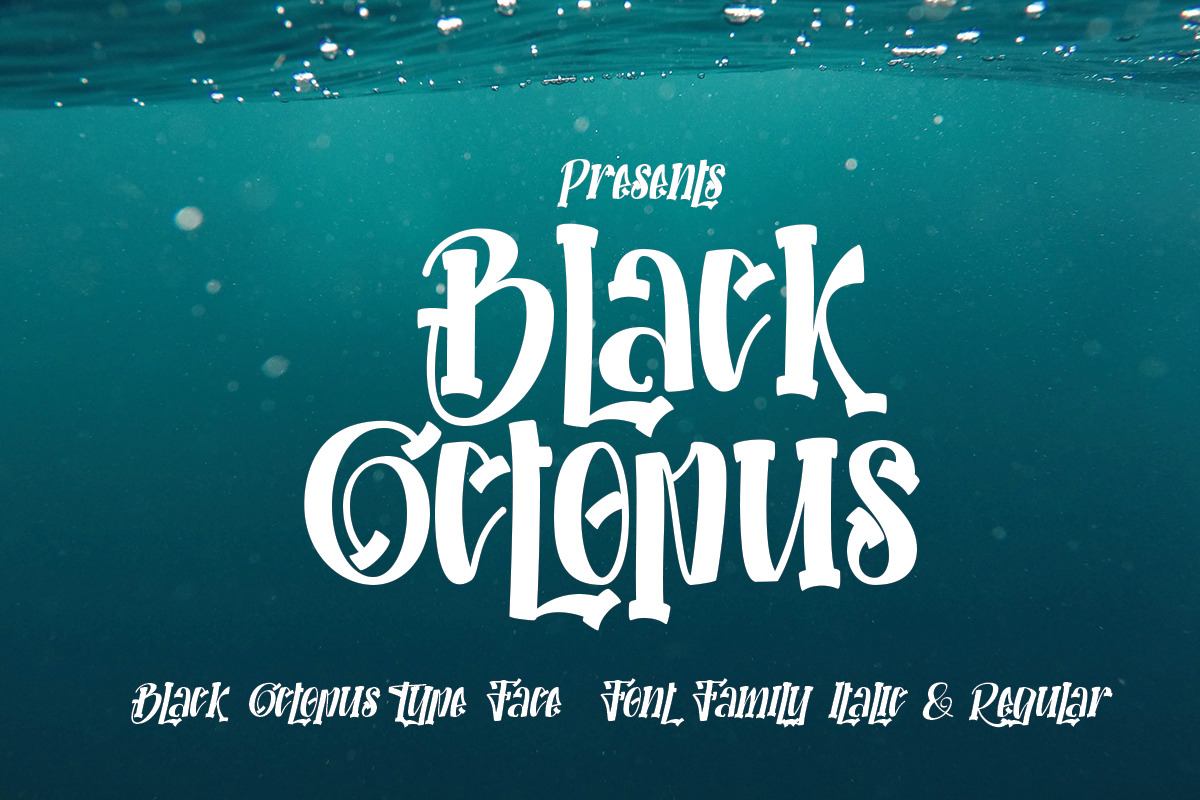
The Black Octopus Font Free Download is a bold and unique typeface that brings an adventurous, striking flair to your designs. With its strong, fluid letterforms, this font is perfect for creating eye-catching logos, posters, headlines, and branding materials. Whether you're designing for an ocean-themed project, a bold brand identity, or any creative venture that needs a distinctive touch, Black Octopus offers a modern, powerful style that stands out.
Black Octopus Font Free Download is ideal for designers looking to add a bold, creative edge to their work. Perfect for projects that need a strong, dynamic presence, this font will help your designs capture attention. Download this captivating font today and infuse your work with a touch of unique, ocean-inspired flair!